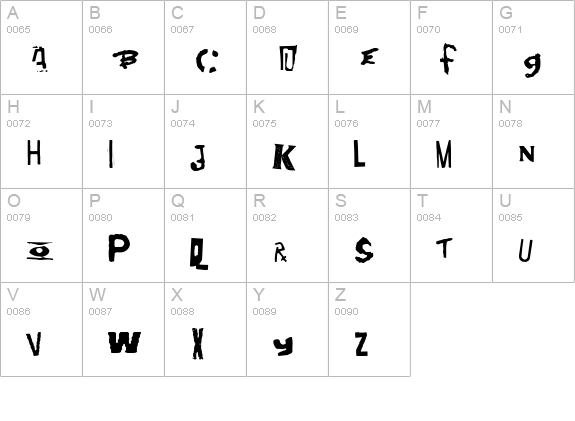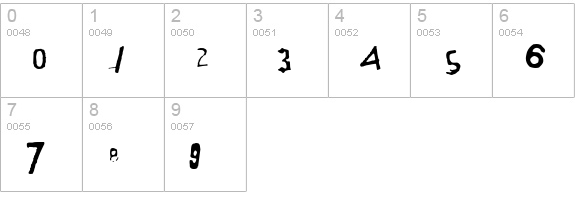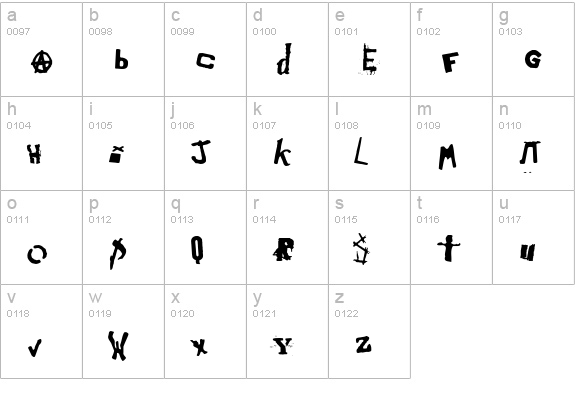
DIY Two Font Details
DIY Two font is a charming and versatile typeface that exudes a sense of creativity and handmade authenticity. Its unique hand-drawn style adds a personal touch to any project, making it perfect for various design purposes such as branding, packaging, posters, and more. The playful and imperfect letterforms of DIY Two font give off a whimsical and artisanal vibe that is sure to capture attention. Best of all, DIY Two font is available for free download at FontsMarket.com, making it easily accessible to designers and creatives looking to add a touch of originality to their work. Whether you're working on a DIY project, a crafty design, or simply want to inject some personality into your typography, DIY Two font is the perfect choice. Download it today and let your creativity shine with this delightful and expressive typeface.